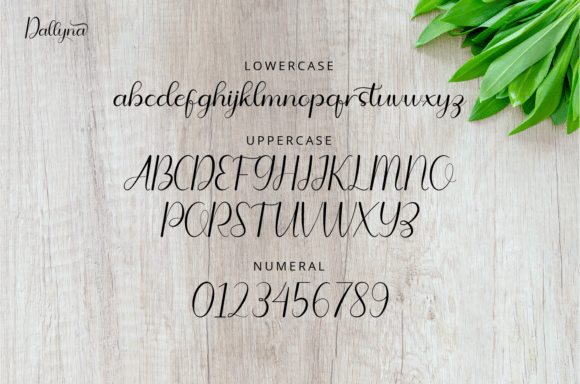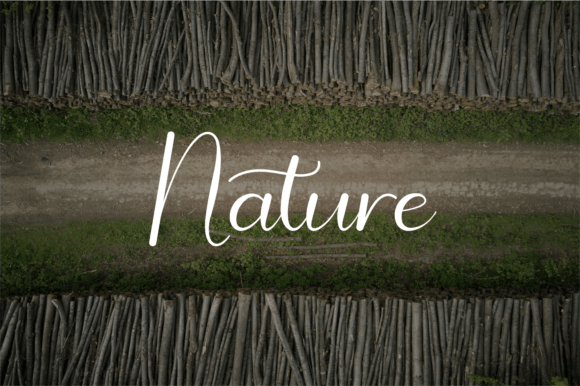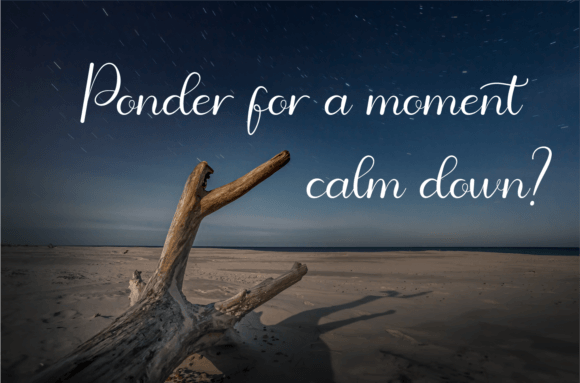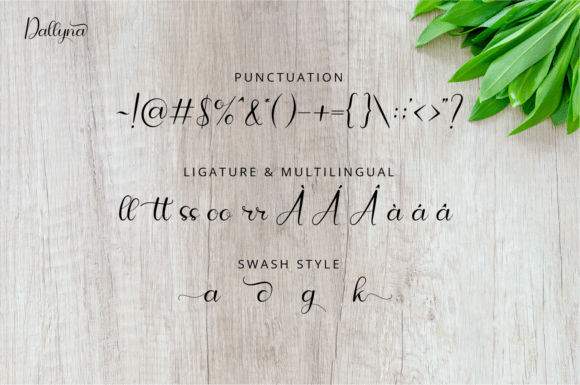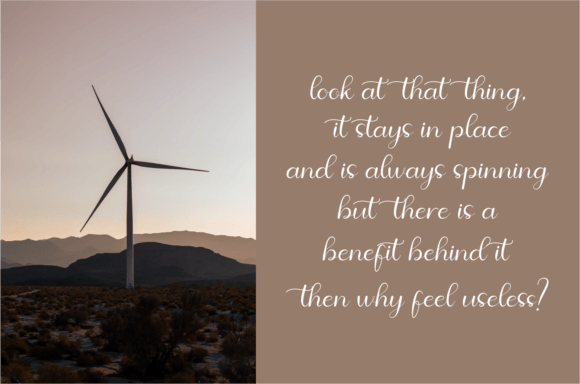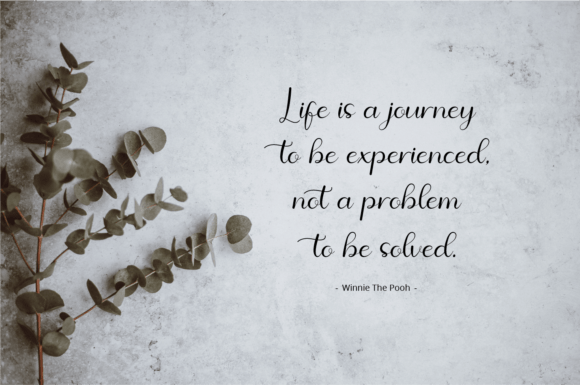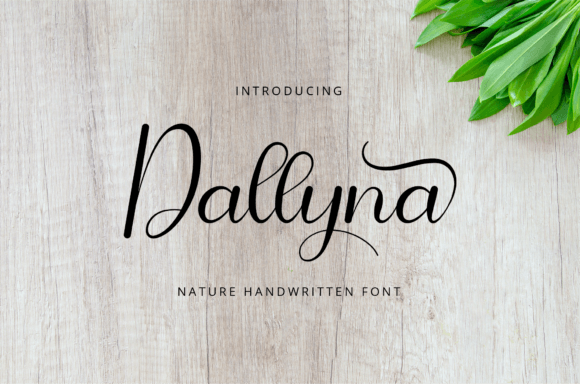
Dallyna Font: Elevate Your Designs with Elegance and Sophistication
Are you looking for a font that can add a touch of elegance and sophistication to your designs? Look no further than the Dallyna Font. This beautiful script font is perfect for designers and crafters who want to create stunning visual content that stands out from the crowd. In this article, we’ll take a closer look at the Dallyna Font, its features, and how you can use it to take your designs to the next level.
What is Dallyna Font?
Dallyna is a gorgeous script font that boasts elegant characters, perfect for adding a touch of sophistication to your designs. Whether you’re working on a branding project, creating social media graphics, or designing a website, this font is sure to impress. Its beautiful, flowing lines and curves make it perfect for headlines, titles, and short paragraphs of text.
Key Features of Dallyna Font
So, what makes the Dallyna Font so special? Here are some of its key features:
- Elegant Characters: Dallyna’s characters are designed to be elegant and refined, making it perfect for designs that require a touch of sophistication.
- PUA Encoded: This font is PUA (Private Use Area) encoded, which means you can access all of the glyphs and swashes with ease. This makes it easy to customize your designs and add unique touches.
- High-Quality Design: This font is designed to be high-quality and versatile, making it perfect for a wide range of design projects.
Benefits of Using Dallyna Font
So, why should you choose the Dallyna Font for your designs? Here are some of the benefits of using this beautiful script font:
- Adds Elegance and Sophistication: Dallyna’s elegant characters and flowing lines add a touch of sophistication to any design.
- Versatile: This font is perfect for a wide range of design projects, from branding and social media graphics to websites and more.
- Easy to Customize: With PUA encoding, you can easily access all of the glyphs and swashes, making it simple to customize your designs.
- Time-Saving: Dallyna is a high-quality font that is designed to save you time and effort in your design work.
How to Use Dallyna Font in Your Designs
Using the Dallyna Font in your designs is easy. Here are some tips to get you started:
- Choose the Right Size: Choose a size that works well for your design. Dallyna is perfect for headlines, titles, and short paragraphs of text.
- Experiment with Colors: Try out different colors to find the one that works best for your design. Dallyna looks great in a variety of colors, from bold and bright to soft and pastel.
- Pair it with Other Fonts: Dallyna pairs well with a variety of other fonts. Try pairing it with a bold sans-serif font for a striking contrast.
- Use the Swashes and Glyphs: With PUA encoding, you can easily access all of the swashes and glyphs. Use these to add unique touches to your designs.
In conclusion, the Dallyna Font is a beautiful script font that is perfect for designers and crafters who want to add a touch of elegance and sophistication to their designs. With its elegant characters, PUA encoding, and high-quality design, this font is sure to impress. Whether you’re working on a branding project, creating social media graphics, or designing a website, Dallyna is a great choice. So why not give it a try and see the difference it can make in your designs?